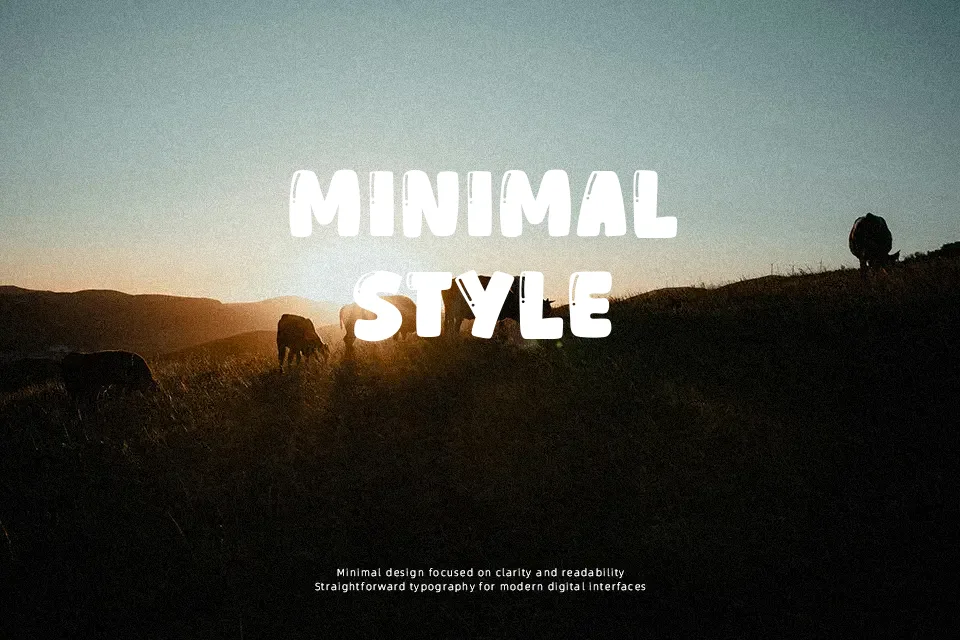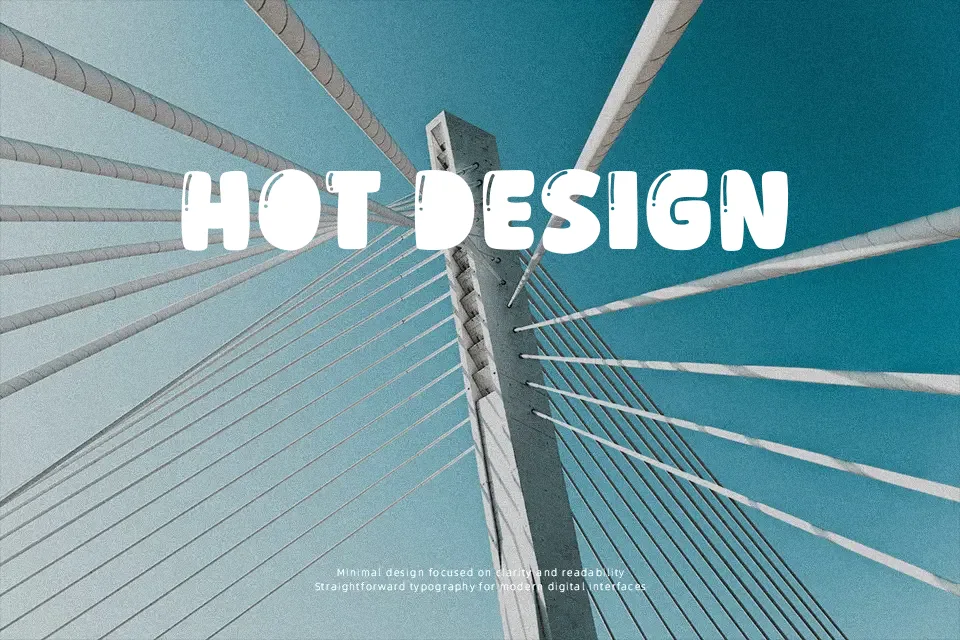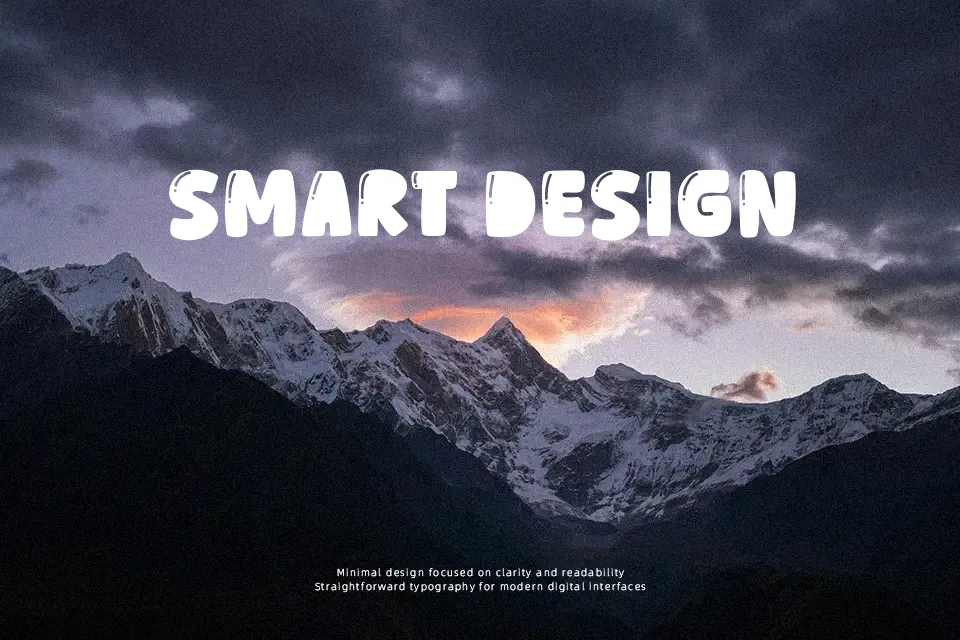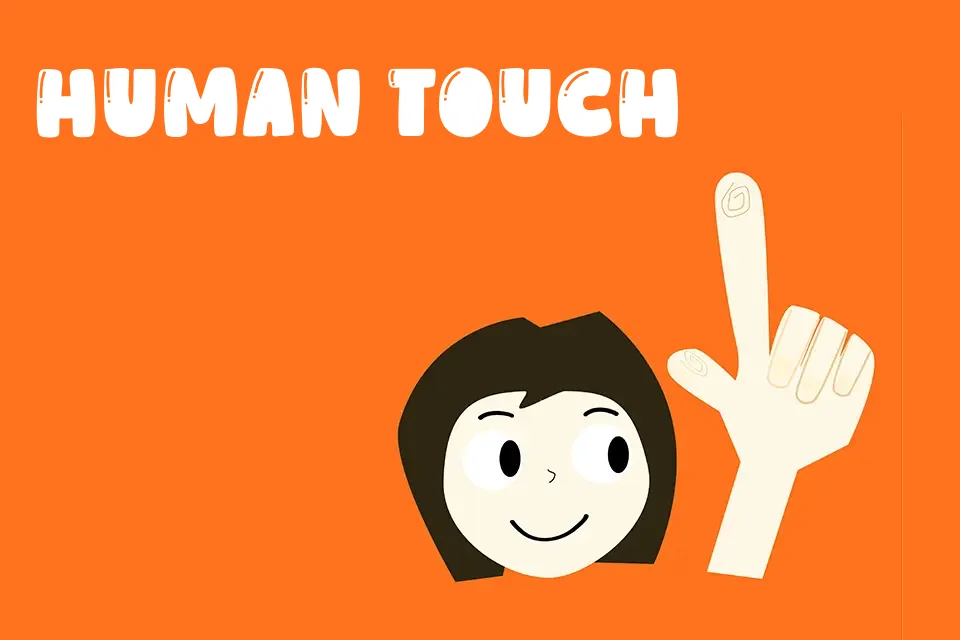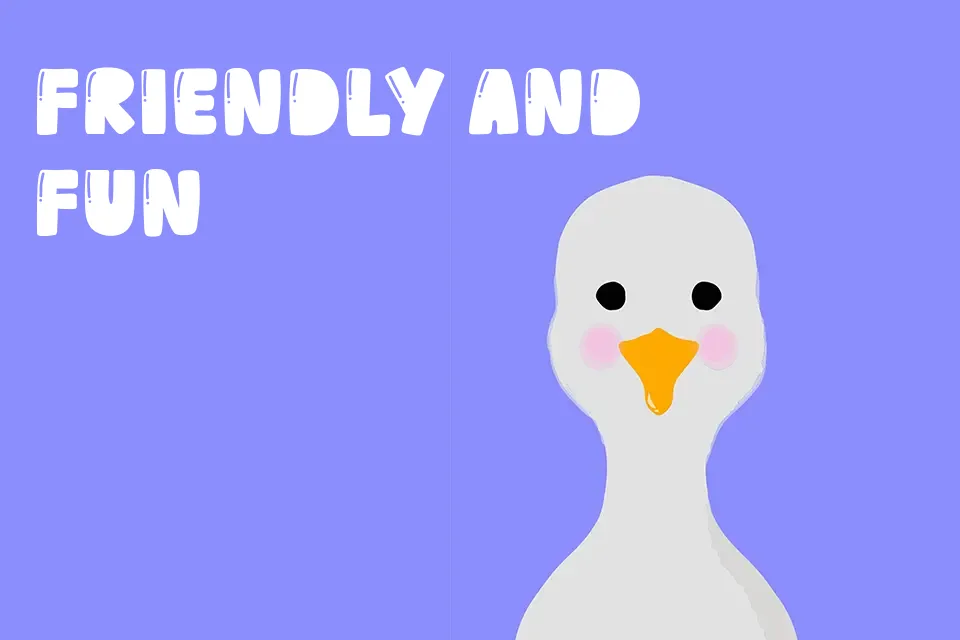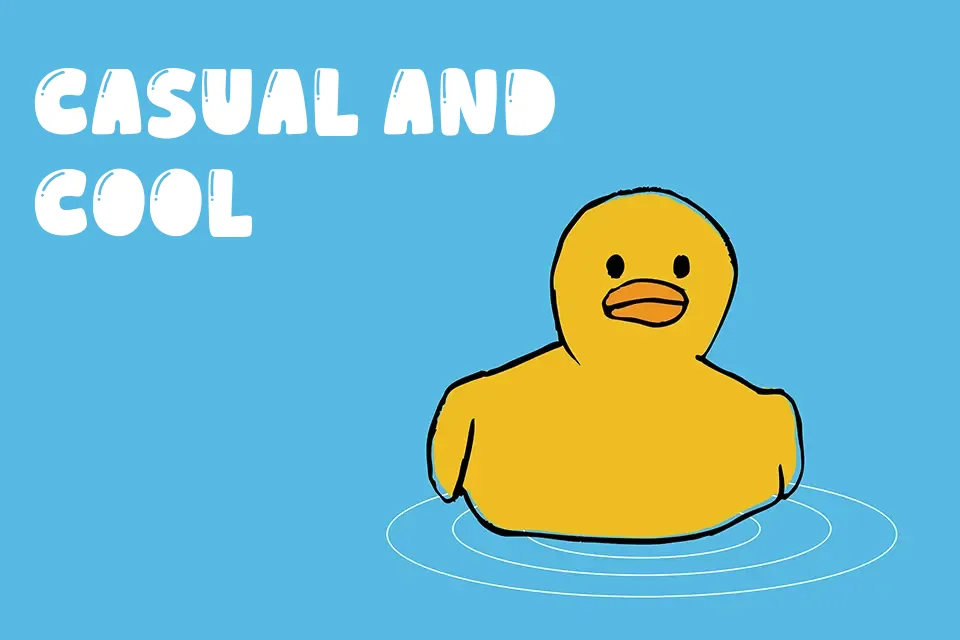
Adore Cats Font
The letterforms in Adore Cats Font carry a loose, informal hand-drawn quality — uneven stroke weights, slightly wobbly baselines, and rounded terminals give it that doodled-by-hand charm. It reads as cheerful and approachable rather than polished or refined. In practice, it works well as a display headline for pet-related products, kids’ party invitations, or casual social media graphics where personality carries more weight than legibility at small sizes. That said, the informal construction becomes a real liability below 18pt — details blur and readability drops fast. It’s also not suited for multi-line body copy or any context requiring visual authority. Think of it as a one-liner font: one strong headline, one clear message, done.
– Pet shop or cat café branding headers
– Children’s birthday invitation titles
– Social media quote graphics with a fun tone
– Sticker and packaging labels for novelty products
– Body text or multi-line paragraphs
– Corporate or professional branding
– Small-size print applications
– Any context requiring visual formality
Perfect for invitation, kids, and logo, with a creative and cartoon style.